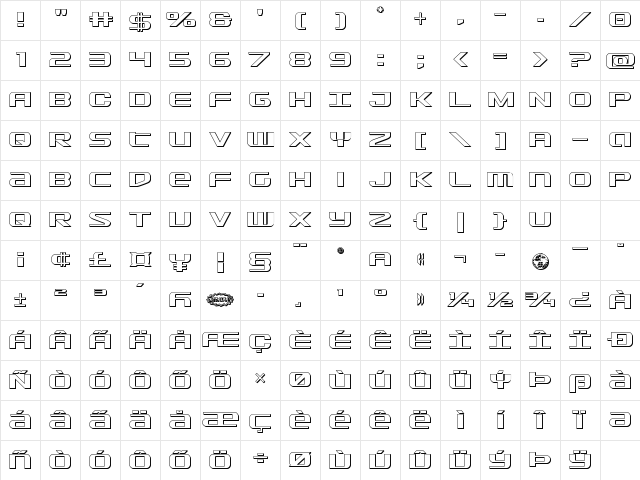
Complete SDF 3D Regular glyph index. Displaying only characters natively supported by SDF 3D Regular font.
SDF 3D is a composed and adaptable typeface that performs quietly and consistently across a wide range of design contexts.